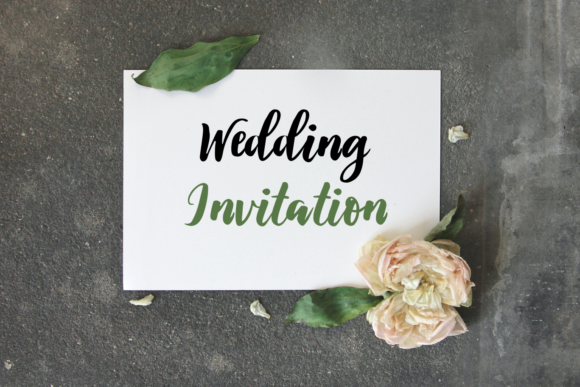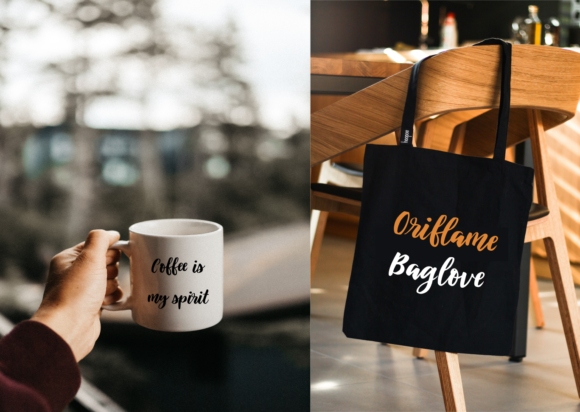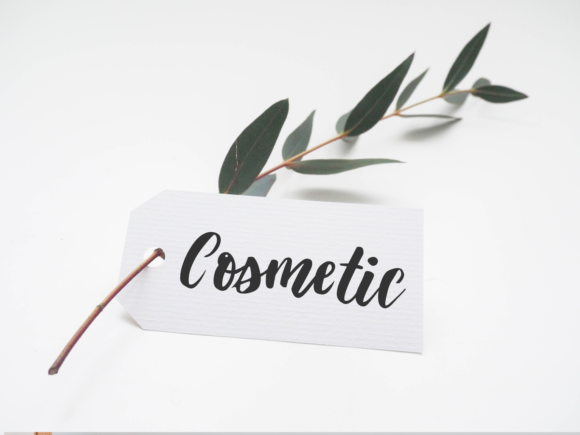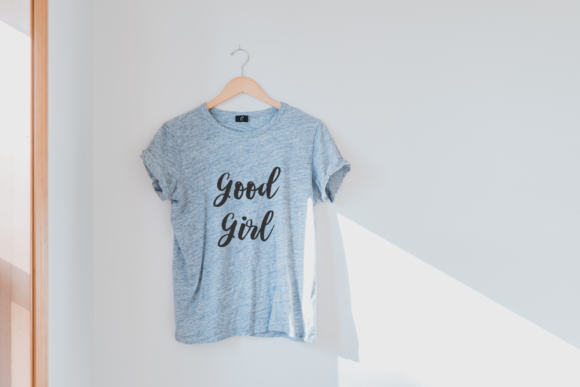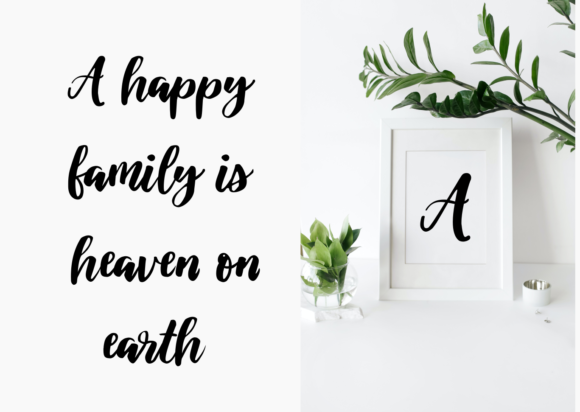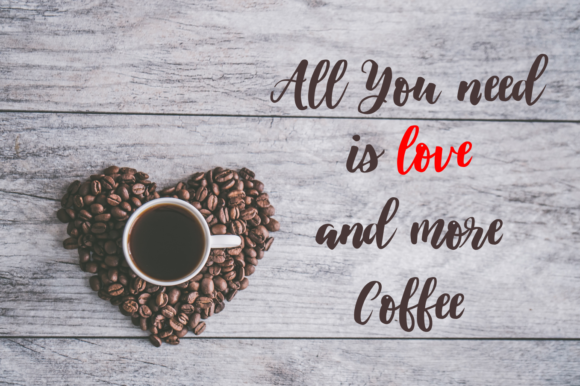
Alicia Font: Elevate Your Designs with Elegant Script Typography
In the world of typography, a well-crafted font can make all the difference in elevating your design projects from ordinary to extraordinary. Introducing Alicia Font, an elegant script font that embodies the perfect blend of classic sophistication and modern flair. Inspired by timeless classic calligraphy, Alicia is designed to bring a touch of refinement and poise to your creative endeavors.
The Essence of Alicia Font
Alicia Font is characterized by its impeccable form, balanced and varied strokes that strike the perfect chord between elegance and readability. Not too thin and not too thick, this font boasts a contemporary atmosphere that makes it versatile for a wide range of design applications. Whether you’re working on a branding project, crafting a stylish invitation, or creating engaging editorial content, Alicia Font is poised to enhance the beauty of your projects.
Key Features of Alicia Font
- Elegant Script Design: Alicia Font features an elegant script design that exudes sophistication and refinement.
- Contemporary Atmosphere: With its balanced and varied strokes, Alicia Font brings a fresh and modern feel to your designs.
- Impeccable Form: The font’s impeccable form ensures that it remains readable and aesthetically pleasing in various design contexts.
- Versatile: Alicia Font is suitable for a wide range of design projects, from branding and advertising to editorial and packaging design.
Why Choose Alicia Font?
With the vast array of fonts available to designers today, what sets Alicia Font apart? Here are a few compelling reasons to choose Alicia for your next design project:
- Unique Aesthetic: Alicia Font offers a unique aesthetic that combines classic calligraphic elements with a modern twist, making your designs stand out.
- Readability: The balanced strokes and elegant design of Alicia Font ensure high readability, even in smaller sizes.
- Flexibility: This font can be used for both digital and print projects, making it a versatile addition to your font library.
- Timeless Appeal: Alicia Font’s classic inspiration ensures that it won’t go out of style anytime soon, providing a timeless appeal to your designs.
Using Alicia Font in Your Design Projects
Integrating Alicia Font into your design workflow is straightforward. Here are some tips on how to make the most of this elegant script font:
- Branding and Logos: Use Alicia Font to create elegant and memorable brand identities that stand out.
- Stationery and Invitations: Add a touch of sophistication to your stationery, invitations, and greeting cards with Alicia Font.
- Editorial Design: Enhance the readability and aesthetic appeal of your editorial content, such as magazines, blogs, and newsletters.
- Packaging Design: Elevate your packaging design with Alicia Font, making your products more appealing on store shelves.
Alicia Font is more than just a script font; it’s a design tool that can elevate your projects to new heights of elegance and sophistication. With its balanced and varied strokes, impeccable form, and timeless classic inspiration, Alicia Font is poised to become a staple in your font library. Whether you’re a professional designer or a crafting enthusiast, Alicia Font offers the perfect blend of style and versatility to bring your creative visions to life.